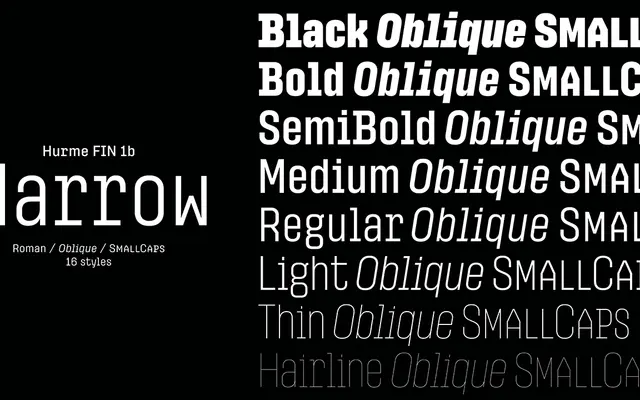
Hurme FIN 1b Narrow
A narrow-width cut of Hurme FIN 1b, a monolinear sans with angular, monospace-inflected characters and selective slab-serif details across eight weights and obliques.
Part of the expansive FIN family spanning nine widths and eight weights, this narrow variant sits between the more conventional FIN 1a grotesque and the FIN Mono designs. Default characters favour angular forms and occasional slab serifs, though the full FIN 1a character set is accessible via OpenType features. Short ascenders and descenders, optically adjusted obliques and a proportionally increasing x-height towards narrower widths define the design's spatial economy.
A monolinear simplified sans-serif with angular, monospace-inspired characters and slab-serif details on certain glyphs, positioning it between a grotesque and a monospace design. The 1b variant's default character set features these angular and slab-influenced forms.